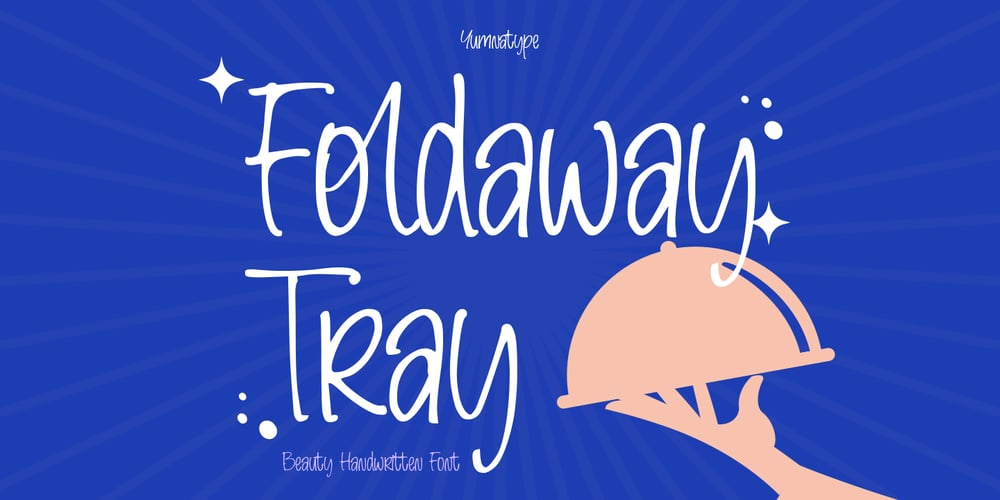
Foldaway Tray Font Family was designed by Donis Miftahudin and published by Yumna Type. Foldaway Tray contains 1 styles and family package options. Foldaway Tray is a delicate handwritten font that evokes a sense of elegance and grace with its thin weight and uneven letter proportions. Each letter in Foldaway Tray is carefully crafted with slender strokes and subtle variations in proportion, adding a sense of fluidity and movement to your text. The thin weight of the font gives it a delicate and airy appearance, while the uneven letter proportions add a touch of character and uniqueness to the overall design. In addition, enjoy the features here.Features: Ligatures Multilingual Supports PUA Encoded Numerals and Punctuations Foldaway Tray fits in headlines, logos, posters, flyers, branding materials, print media, editorial layouts, and many more designs. Find out more ways to use this font by taking a look at the font preview.Thanks for purchasing our fonts. Hopefully, you have a great time using our font. Feel free to contact us anytime for further information or when you have trouble with the font. Thanks a lot and happy designing.